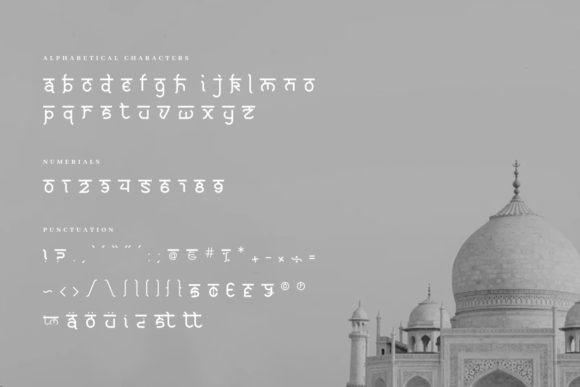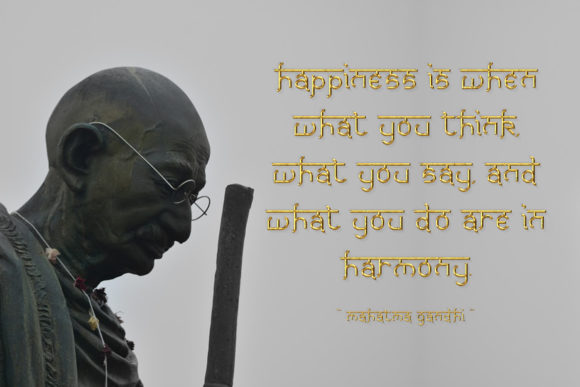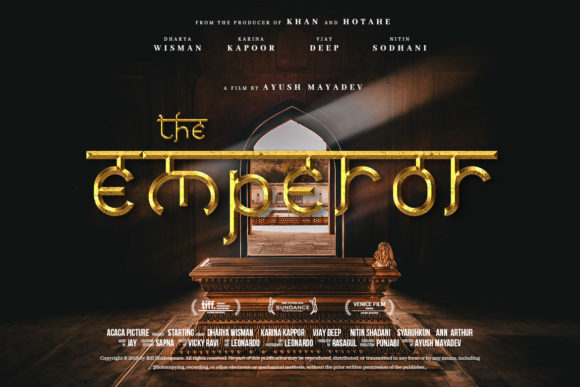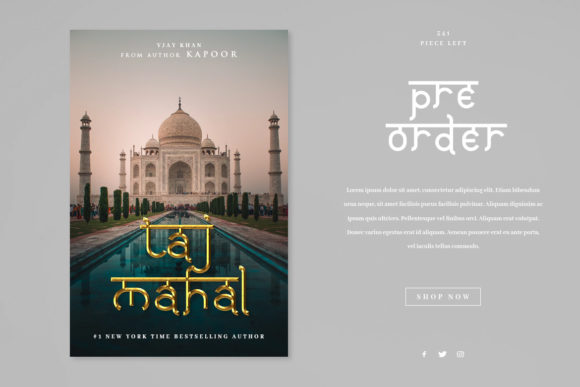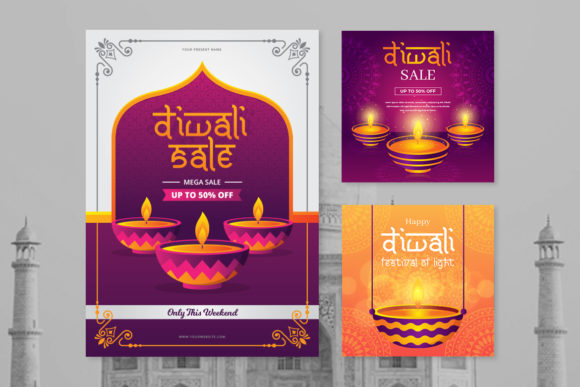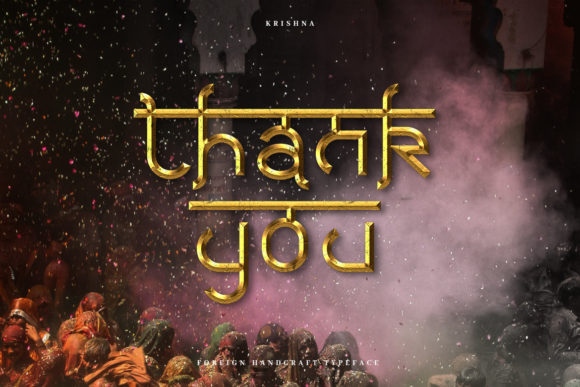
Introduction to Krishna Font
Remember the moment when you’re brainstorming ideas for a creative project, and everything just clicks? You’re envisioning a beautiful, eye-catching design that’s sure to impress. But, what if you could elevate your concept to the next level? Introducing the Krishna Font, an incredibly unique and interesting display font that’s about to revolutionize your design game.
Whether you’re a seasoned designer or just starting out, the Krishna Font is a valuable resource that’s sure to become your new go-to. With its high-quality design and transparent background, this font is perfect for adding a touch of sophistication to your creative projects. Plus, it’s free to download, making it an accessible design resource for designers of all levels.
Key Features of Krishna Font
- High-quality, professional font suitable for creative projects, offering a unique aesthetic.
- Includes a range of characters, including Latin, Cyrillic, and Devanagari scripts, making it a versatile design resource.
- Suitable for use in a variety of creative projects, from branding and advertising to editorial and publishing design.
Honest Review: Krishna Font
As a designer, I’m always on the lookout for high-quality fonts that can elevate my creative projects. I recently stumbled upon the Krishna Font, and I’m excited to share my thoughts on it.
One of the standout features of the Krishna Font is its beautiful, intricate designs ✨. The font is perfect for adding a touch of elegance and sophistication to your designs, whether it’s a business card, logo, or website. Plus, it’s completely free to download, which is a major plus in my book.
- Beautiful, intricate designs ✨
- Perfect for creative projects, such as logos, business cards, and websites
However, I do have a few minor complaints ⚠️. The font’s transparent background can sometimes make it difficult to work with, especially if you’re using a complex design. Additionally, the font’s size and style can be a bit overwhelming in some situations.
Overall, I’m impressed with the Krishna Font and would definitely recommend it to fellow designers. With its high-quality designs and transparent background, it’s a valuable addition to any design resource collection.
Tips for Getting the Most Out of Krishna Font
To achieve the best results, use the Krishna Font on a transparent background to create a seamless design. Experiment with different font sizes and styles to find the perfect balance for your creative project.
The Krishna Font is ideal for a variety of projects, including:
- Wedding invitations and decorations
- Graphic designs and illustrations
- Business logos and branding
- Party decorations and signage